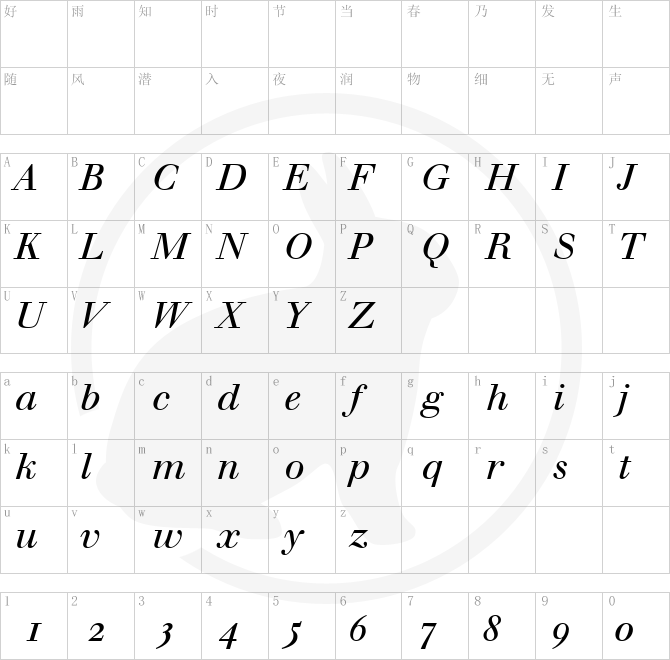
- Font Name:Walbaum
- Subfamily:Roman Italic
- Full Name:Walbaum Italic Oldstyle Figures
Walbaum-Italic-Oldstyle-Figures.ttf is a very beautiful artistic font, Walbaum-Italic-Oldstyle-Figures.ttf is widely used in the design and printing of various books and pictures,Walbaum-Italic-Oldstyle-Figures.ttf has a strong visual impact,Walbaum-Italic-Oldstyle-Figures.ttf is a commonly used font in newspapers, magazines and books, and is used in posters, e-commerce Poster design, store design, logo design, font design and other fields.Walbaum-Italic-Oldstyle-Figures.